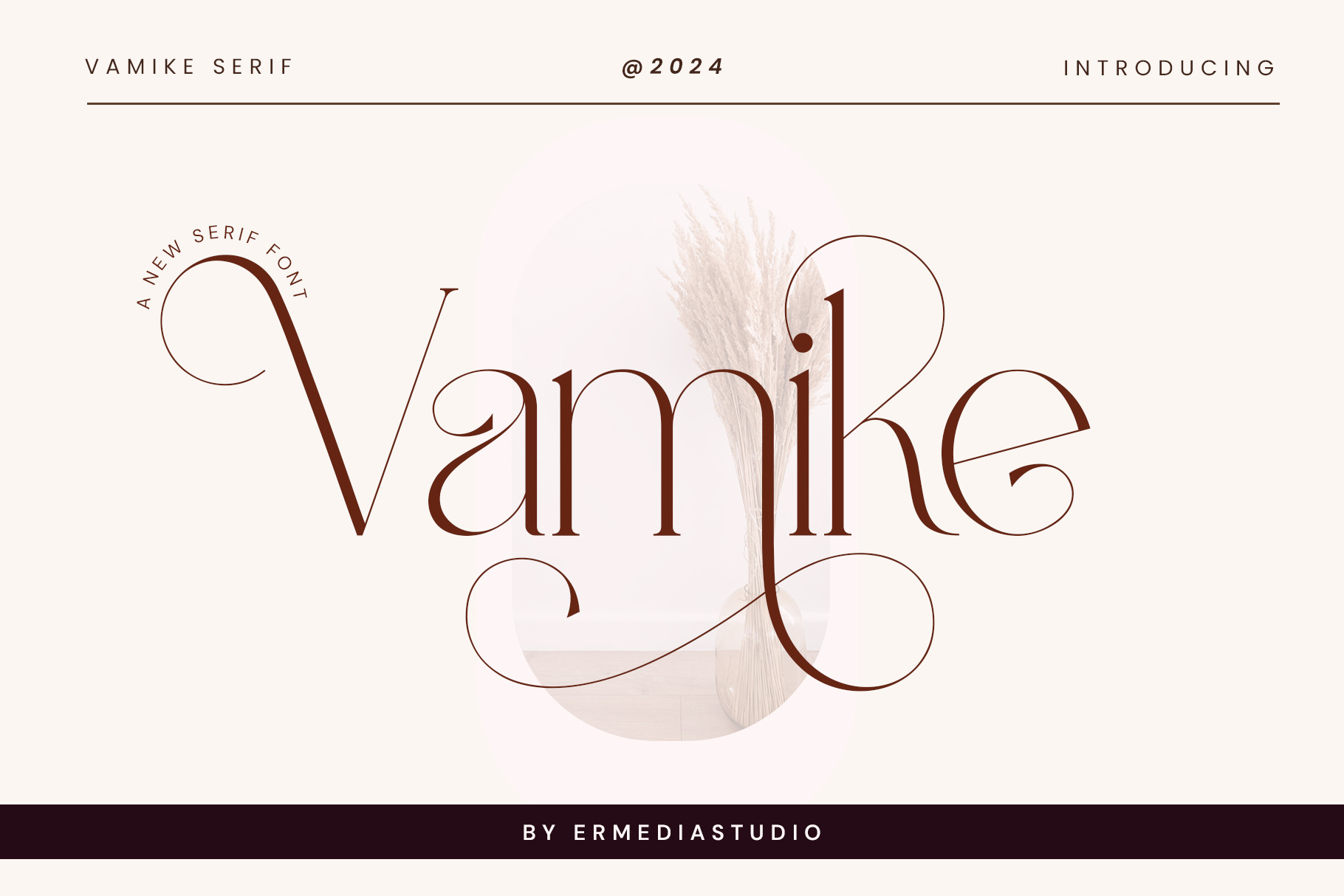
Vamike Serif Font
Introducing Vamike Serif Font: is a modern serif font that is balanced, smooth, elegant and stylish. He has a beautiful character. Very suitable to be combined with invitation card designs, company logos, film titles, film names, business cards, book titles, brand names and various other designs.